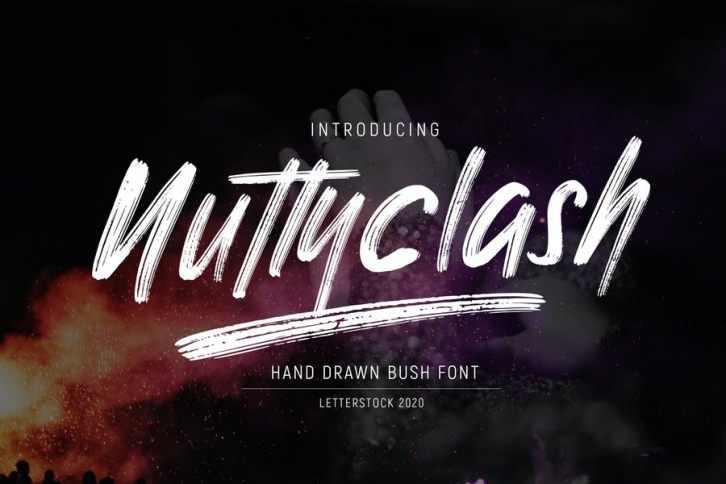
Nuttyclash Font
This pair was inspired by vintage music band poster design that i saw on some coffee shop, It was crafted by hand specially to add natural handmade feeling in its brand identity than i make it clean with pentool.
Opentype features Nuttyclash font has 172 character set included Nuttyclash is very good looking in logo, labels, t-shirt prints, product packaging, invitations, advertising and others.